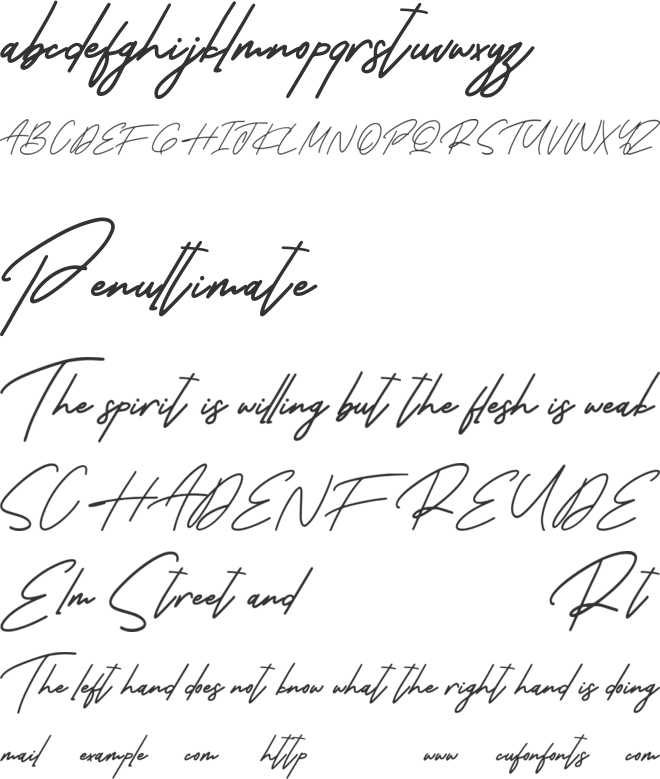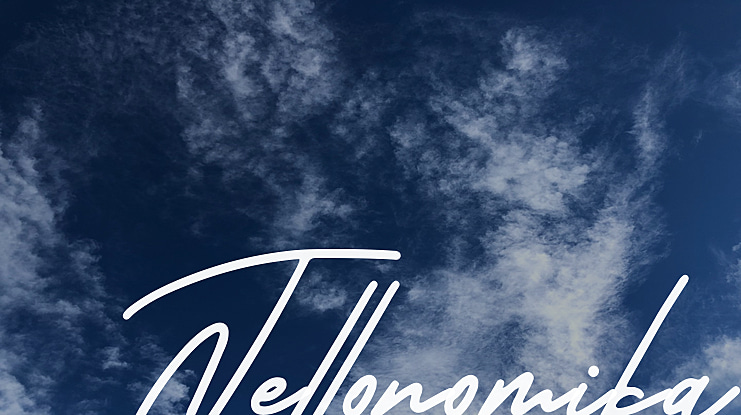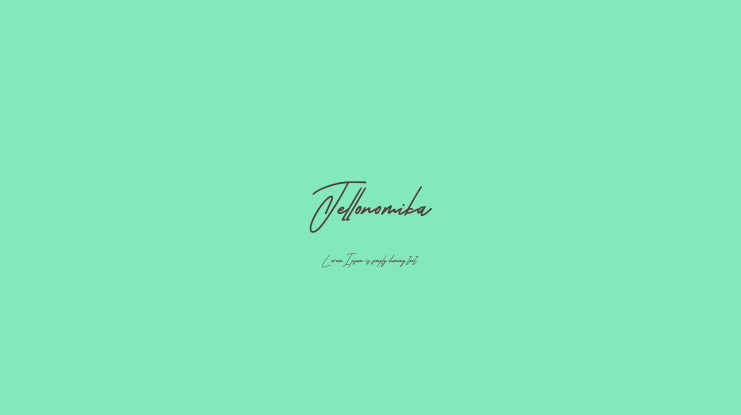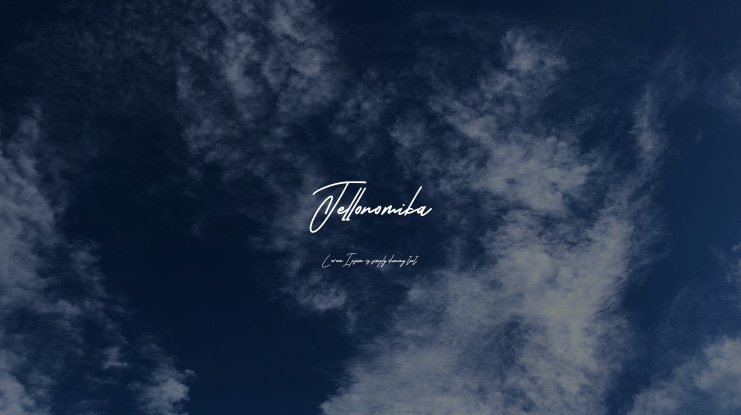
Jellonomika Font
Jellonomika is a flowing, stylish and thin handwritten font. This font was particularly crafted for those who need a beautiful and refreshing look to their designs.